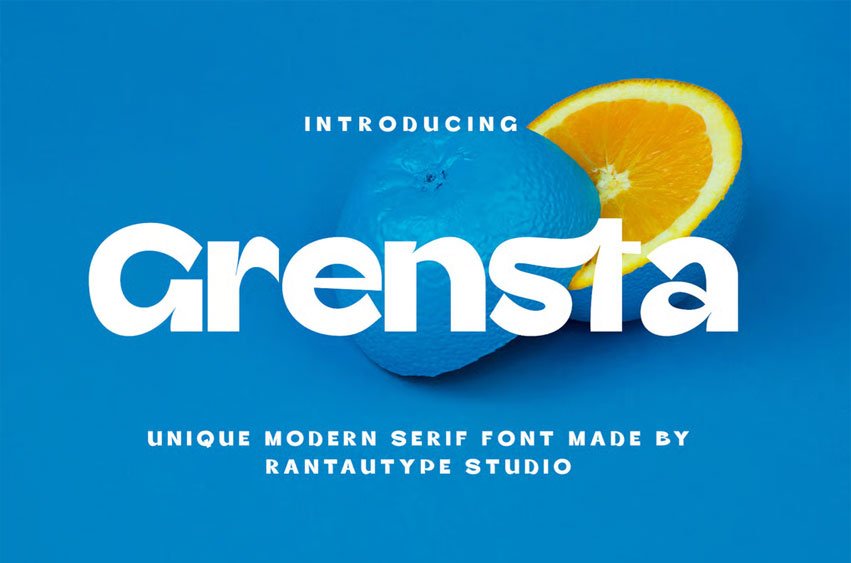
Grensta Font is a modern sans-serif font with a unique character shape. The bold style of Grensta conveys confidence and strength. It is a perfect choice for a variety of creative endeavors, including chic lifestyle designs such as logotypes, advertisements, watermarks on photography, stationery, branding projects, displays, magazines, invitations, corporate branding, product design, labels, business projects, and many other projects that require a modern touch.